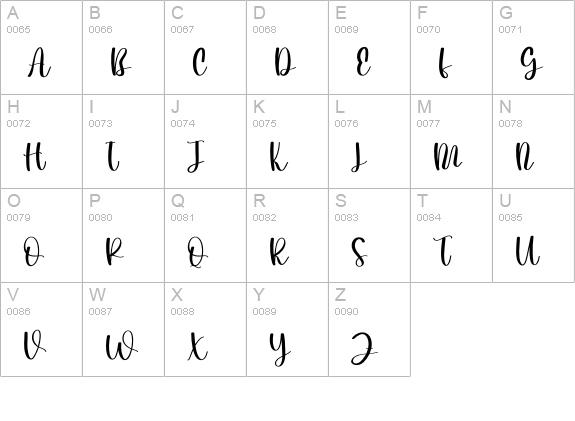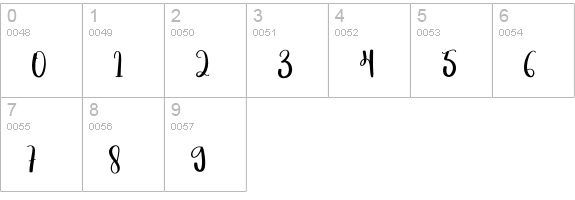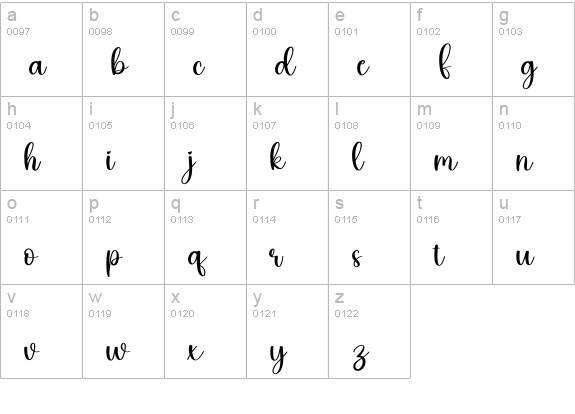
Honeydrink Font Details
Honeydrink is a free for personal use font in the Script > Handwritten category, designed by scratchones. It has been downloaded 28 times and is available for Windows, Mac and Linux.
Introducing Honeydrink font, a delightful and whimsical typeface that exudes warmth and sweetness. This charming font features playful curves and elegant flourishes that make it perfect for a wide range of creative projects. Whether you're designing invitations, branding materials, or social media graphics, Honeydrink font will add a touch of whimsy and charm to your work.